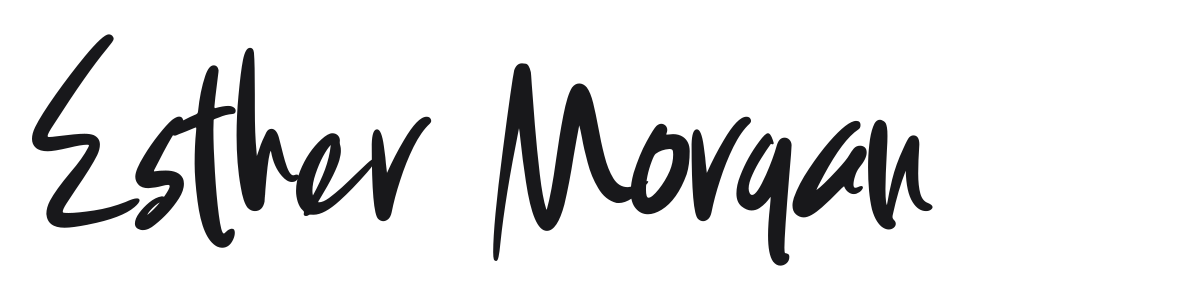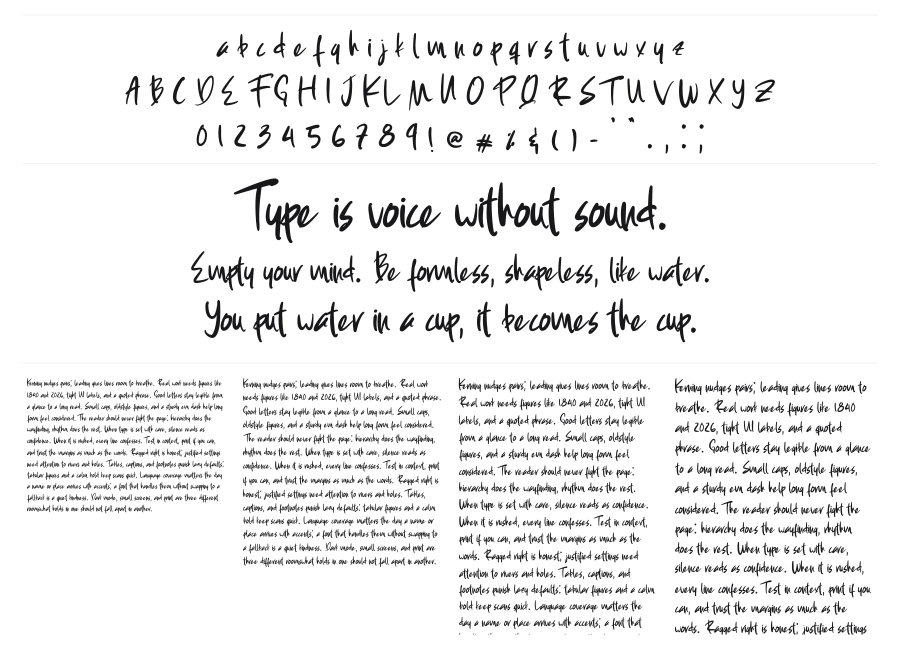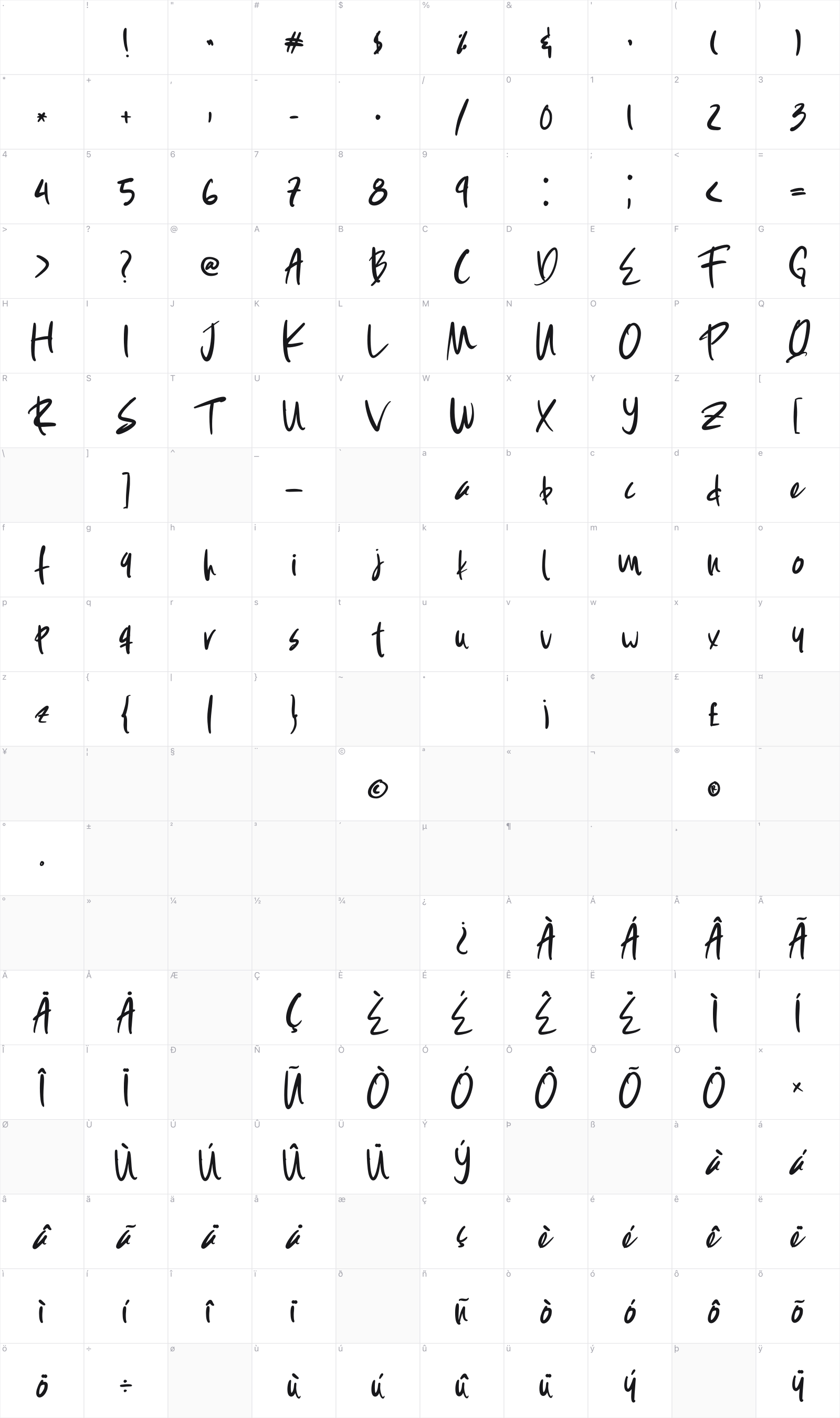
Esther Morgan
Esther Morgan is a casual brush script with the raw energy of marker or ink lettering done quickly and confidently. Thick downstrokes taper into wispy hairlines, and the slightly uneven baseline keeps the whole thing feeling genuinely handmade rather than digital. It carries the warmth of a personal note at headline scale.